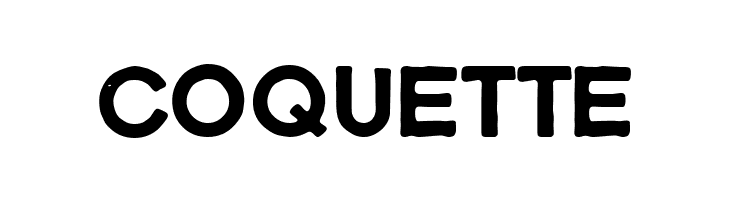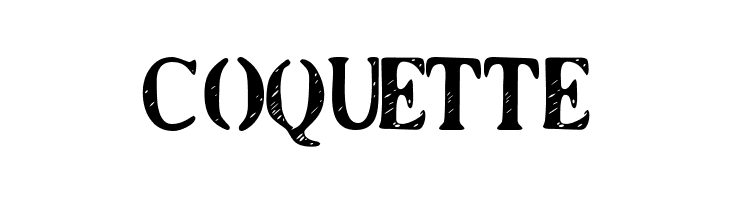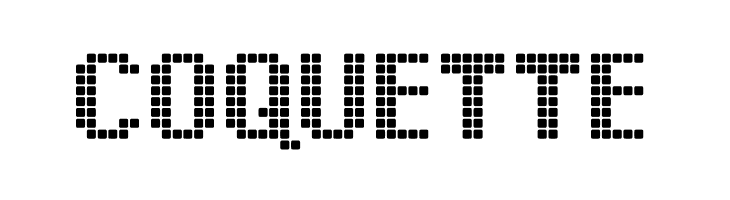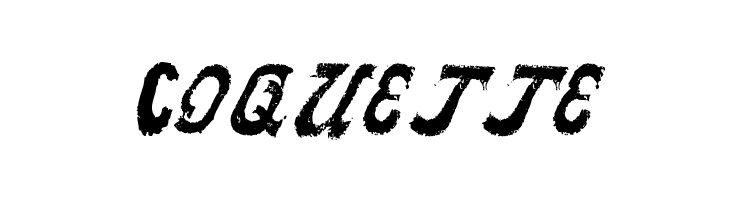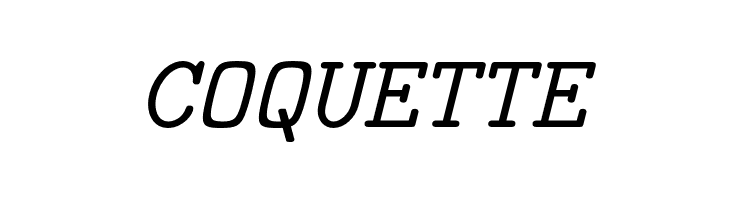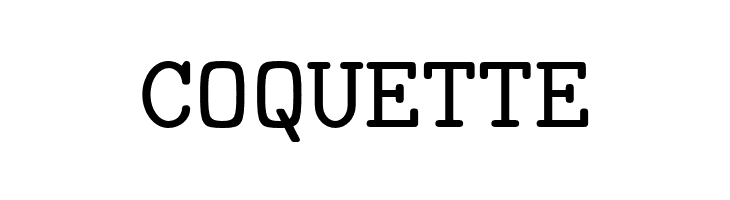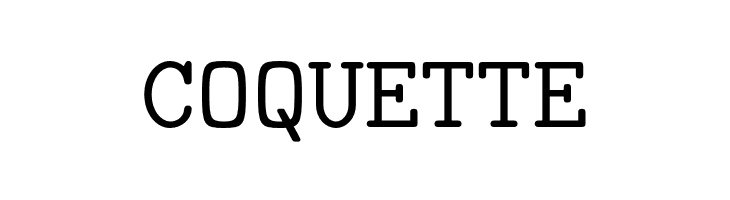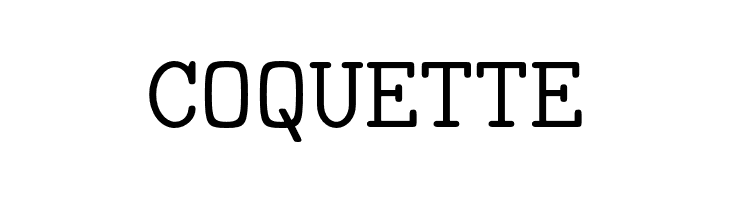
A bold, playful font with rounded edges and a friendly appearance.
A bold, hand-drawn font with textured strokes and a playful, artistic style.
A bold, textured, and italicized font with a vintage, distressed style.
A pixelated, retro-style font with a digital aesthetic.
A bold, distressed font with a vintage, textured appearance.
A bold, distressed font with a vintage, industrial feel.
A monospaced italic font with a classic typewriter feel and modern appeal.
A monospaced slab serif font with a classic typewriter style.
A monospaced font with classic typewriter aesthetics and slight serifs.
A monospaced slab serif font with uniform width and consistent stroke weight.